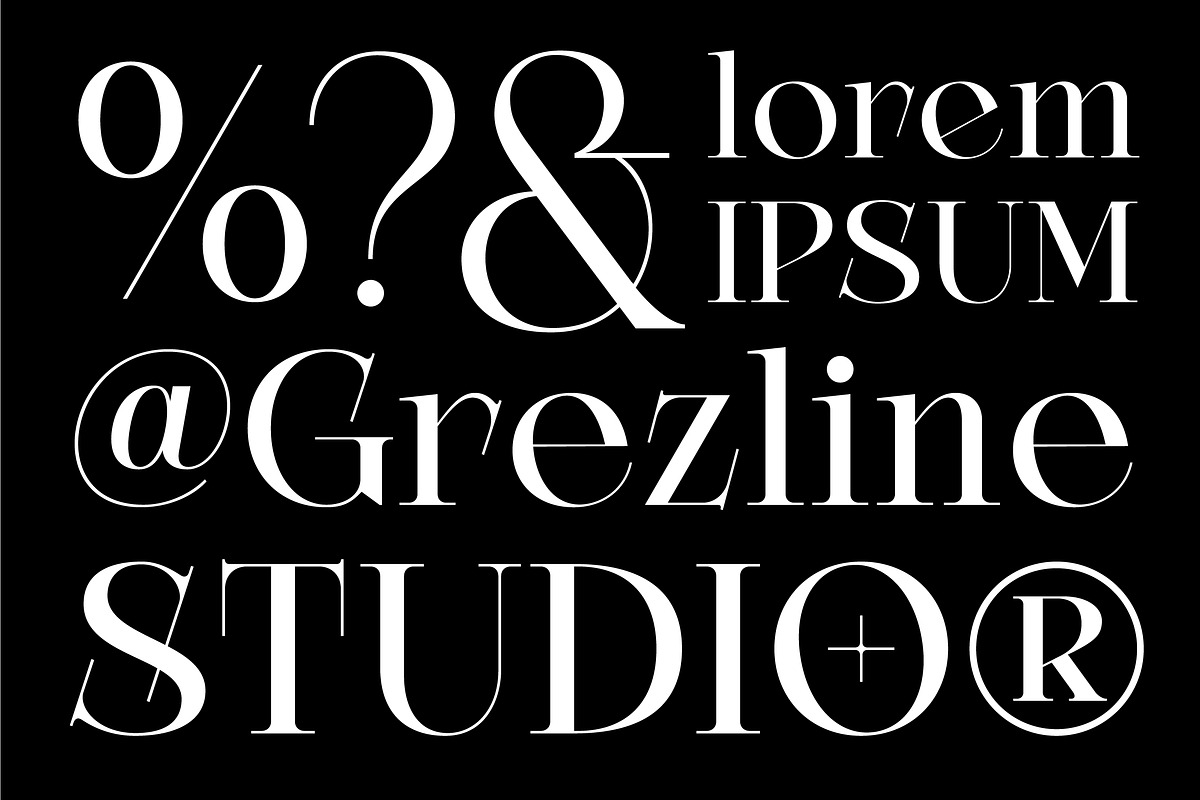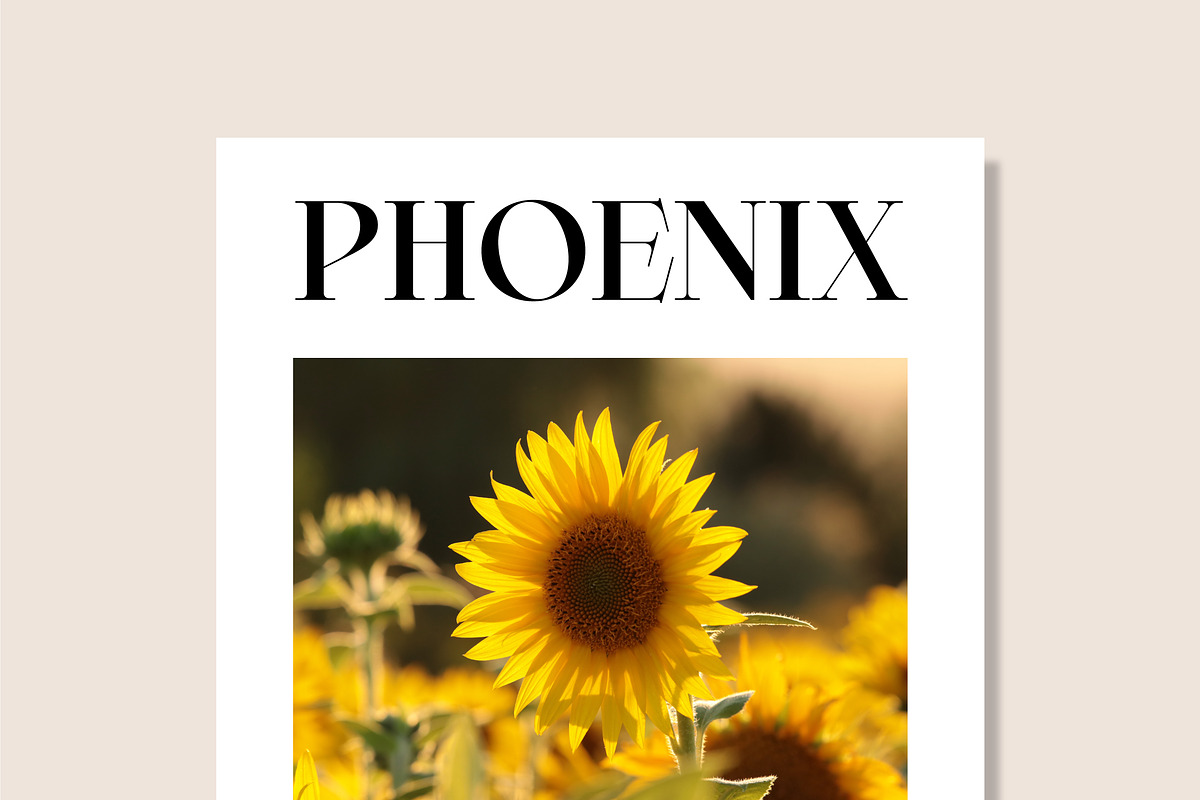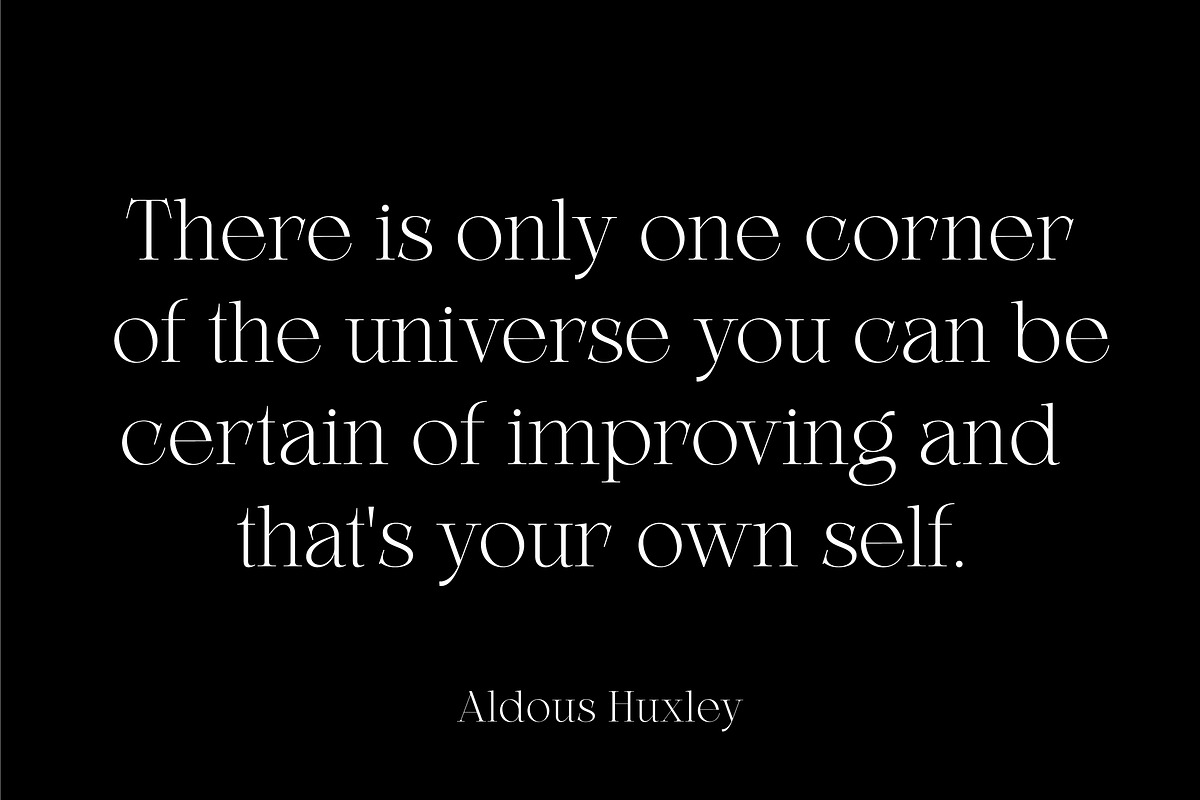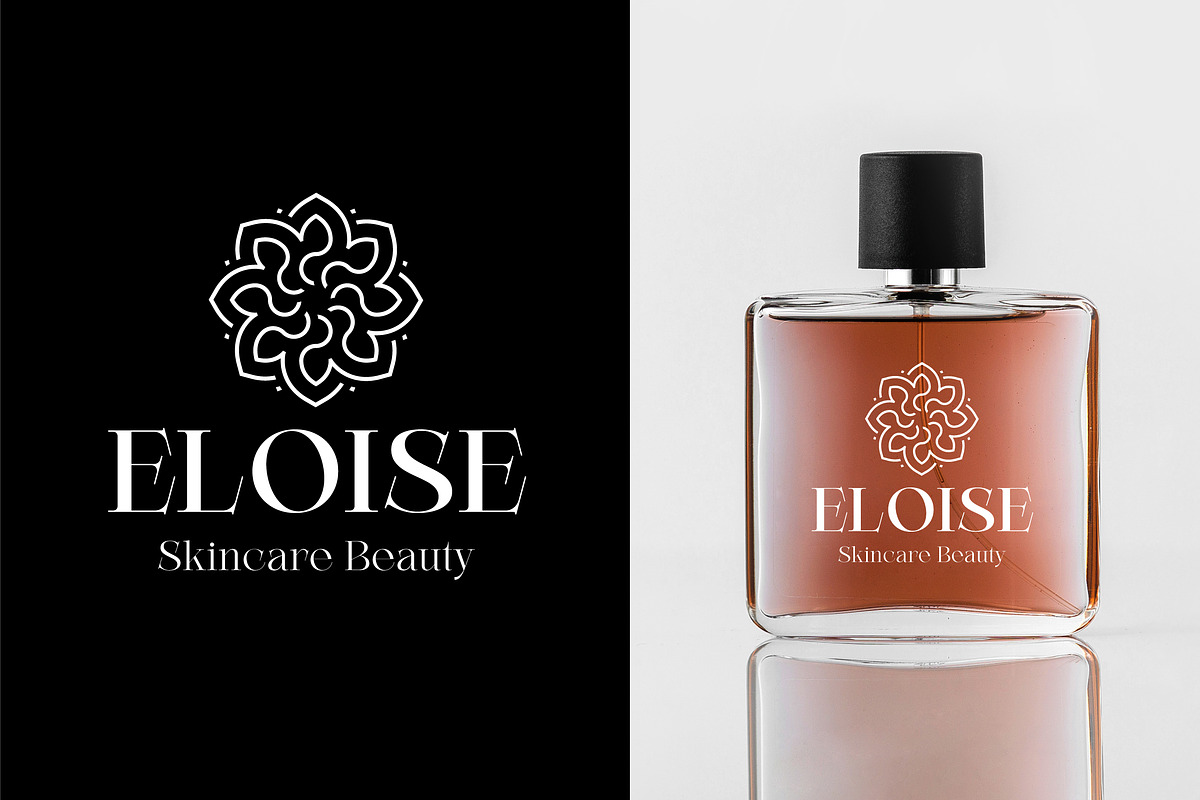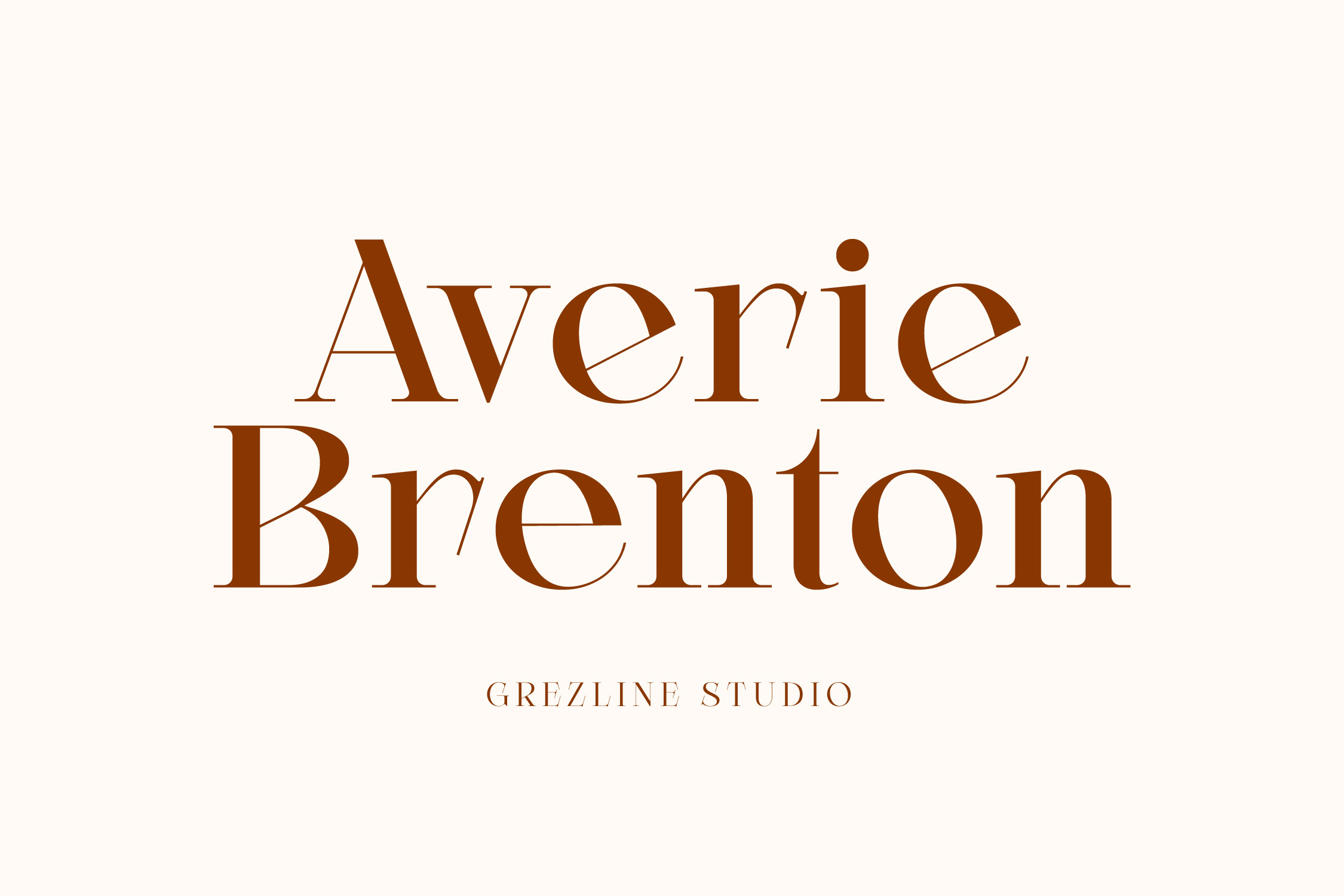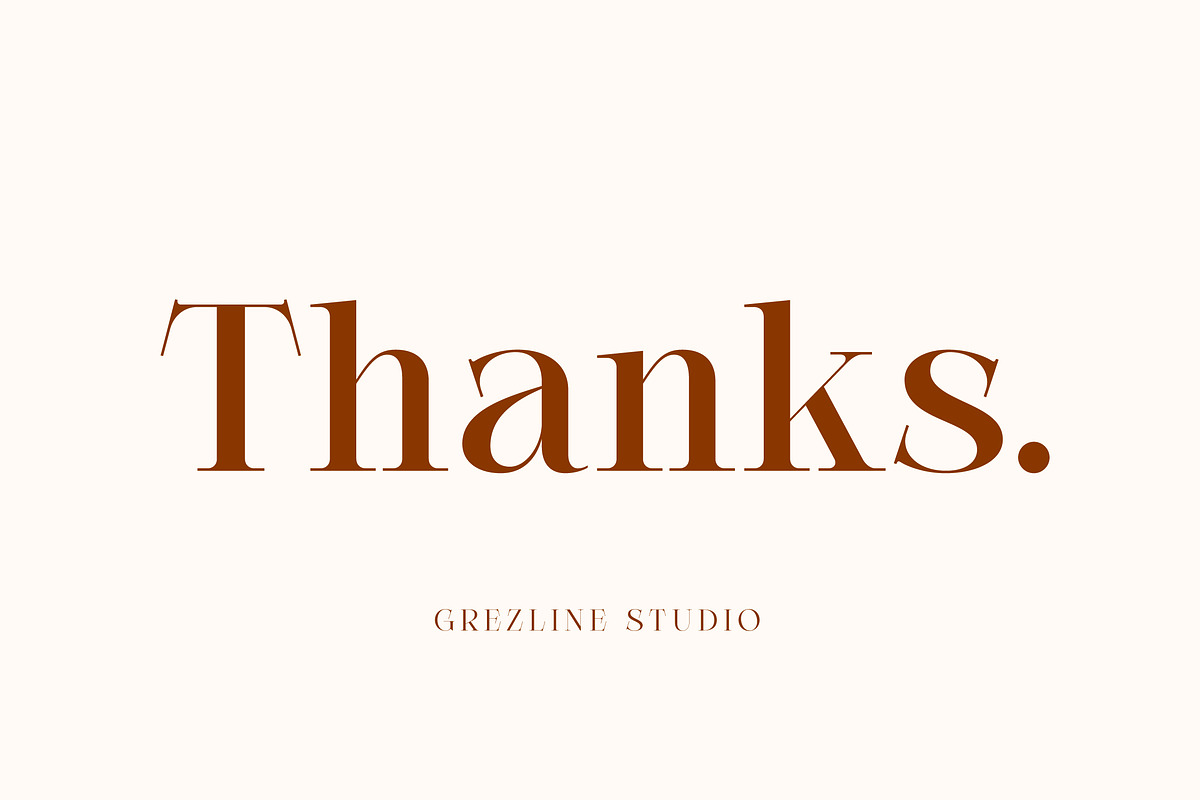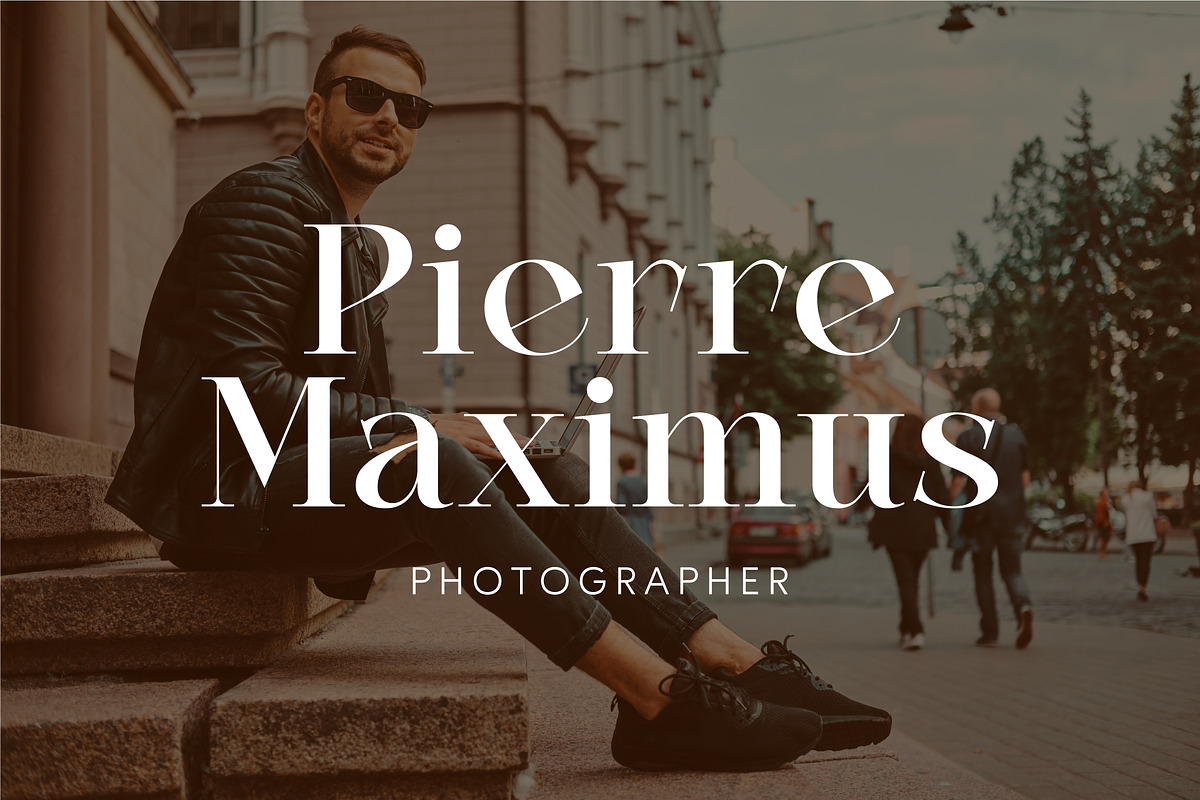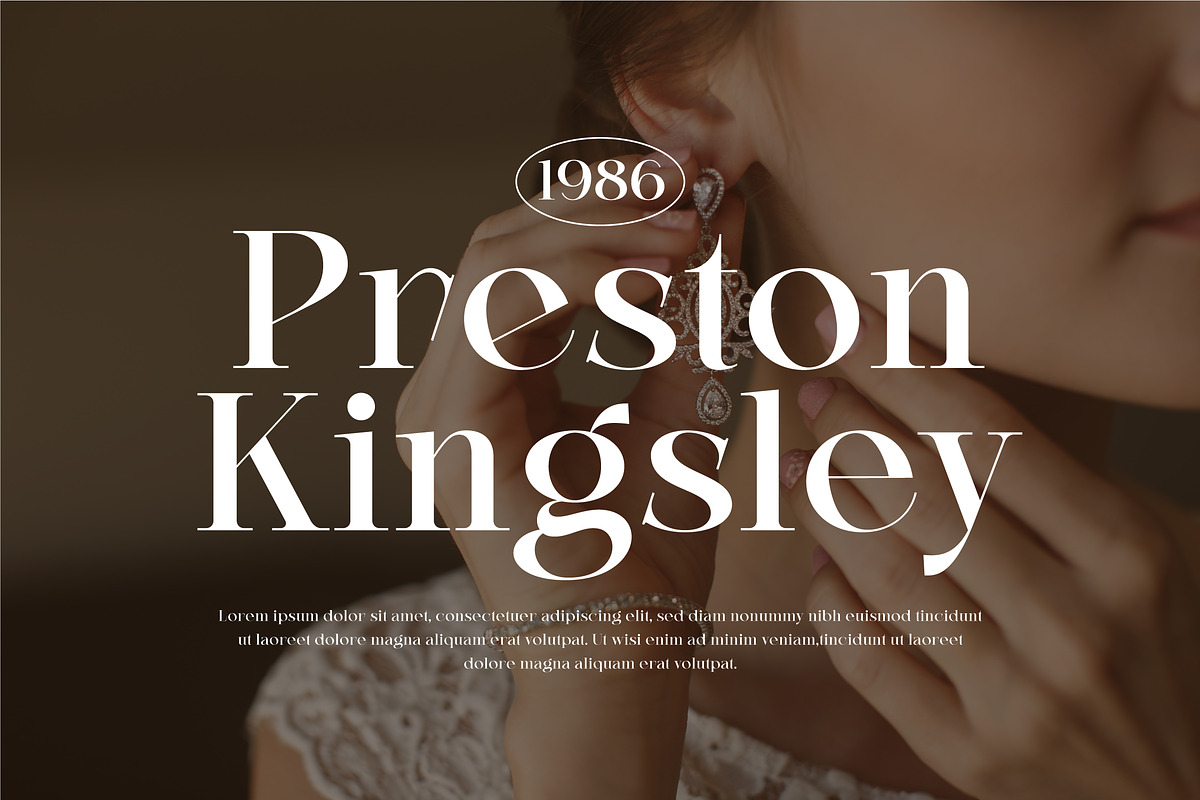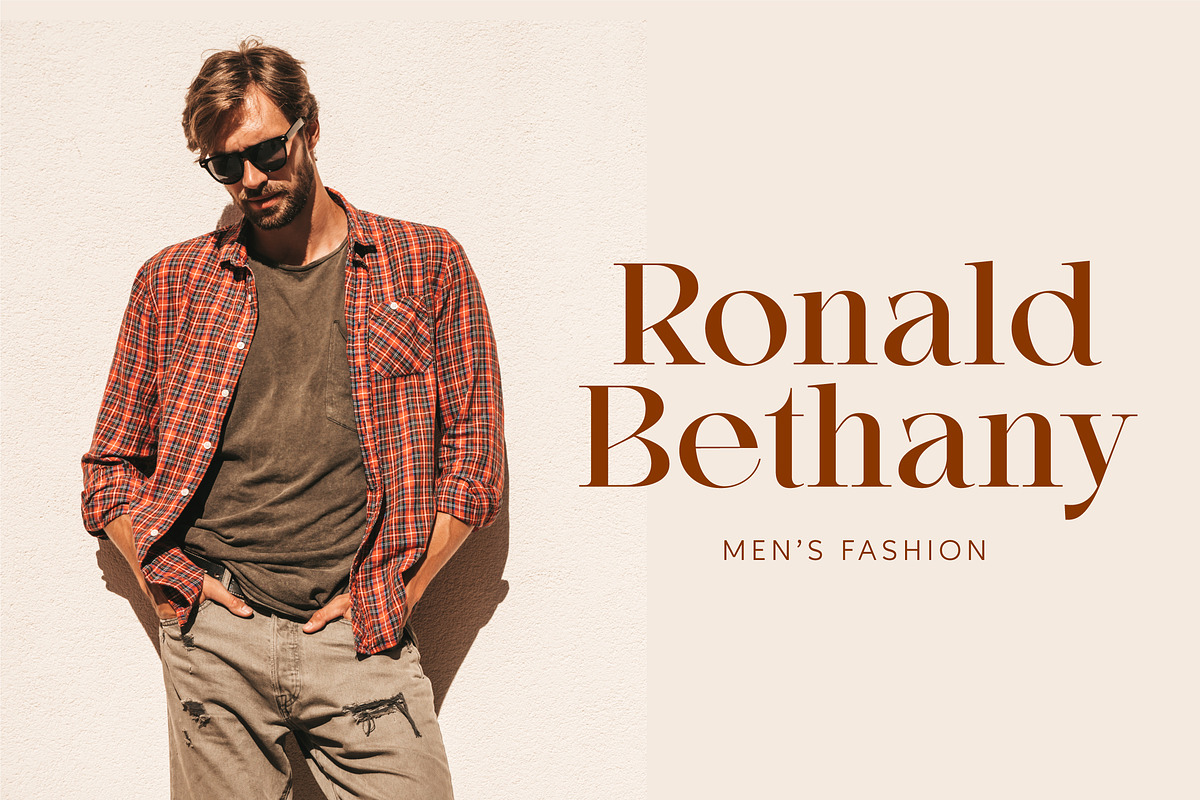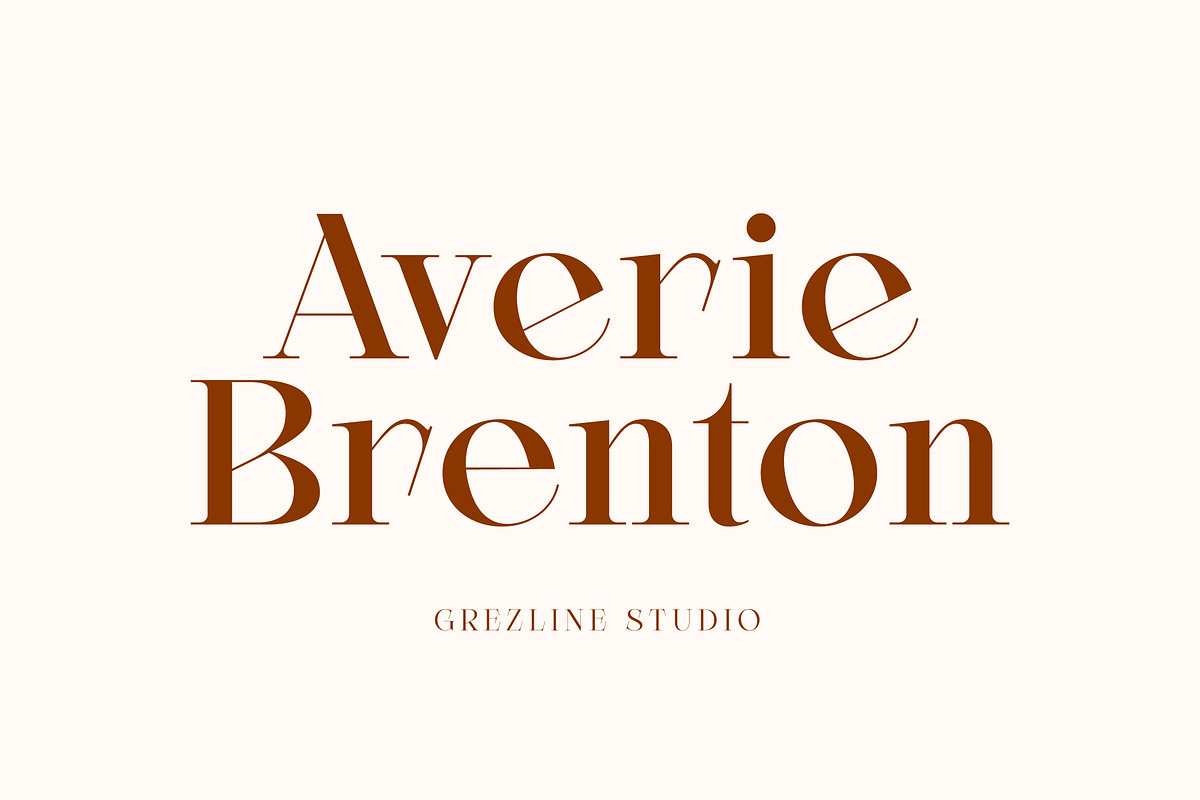
Averie Brenton - Serif Font Family
Averie Brenton is an elegant serif font family. Perfectly to be applied to various forms such as invitations, labels, logos, magazines, books, greeting / wedding cards, packaging, fashion, make up, stationery, novels, labels or any type of advertising purpose.
- Alternates and Ligatures